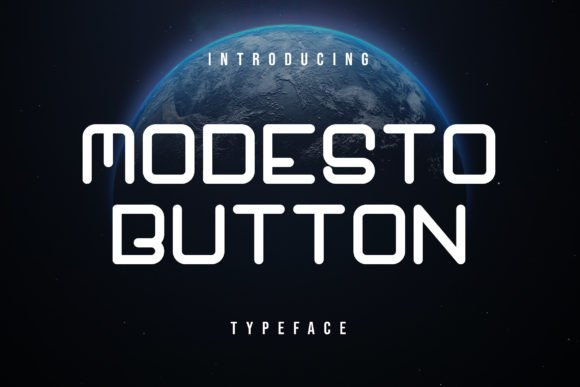
Introducing Modesto Button Font: A Modern Masterpiece for Your Design Arsenal
In a world where visual appeal reigns supreme, Modesto Button Font emerges as a game-changer for designers seeking to make a lasting impact. This modern masterpiece, meticulously crafted by zerologicstudio, is not just a font; it's an artistic expression that transforms your designs into captivating creations.
Modesto Button's distinct sans serif style exudes a timeless elegance, while its sharp and strong features add an edge of contemporary sophistication. This versatile font family includes uppercase and lowercase characters, numerals, and symbols, providing you with the creative freedom to tackle various design projects effortlessly.
With Modesto Button, your typography will transcend the ordinary and elevate your designs to new heights. Imagine your logos, posters, magazines, brochures, and packaging adorned with this striking font, each element radiating with personality and purpose. Your digital creations, from websites to social media posts, will come alive with Modesto Button's captivating charm, attracting attention and leaving a lasting impression.
This font is not merely a tool; it's a creative catalyst that ignites your imagination and empowers you to craft designs that resonate with your audience. Whether you're a seasoned designer or just starting your creative journey, Modesto Button is the perfect companion, guiding you towards design excellence.
Embrace the limitless possibilities of Modesto Button Font and unlock the true potential of your creativity. With its modern aesthetics, versatility, and captivating presence, this font is the key to unlocking your design dreams. Don't settle for ordinary fonts; elevate your work with Modesto Button and witness the transformation it brings to your designs.